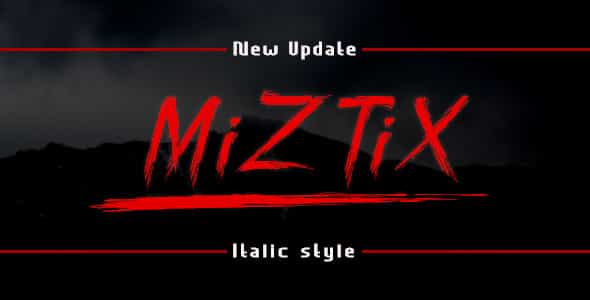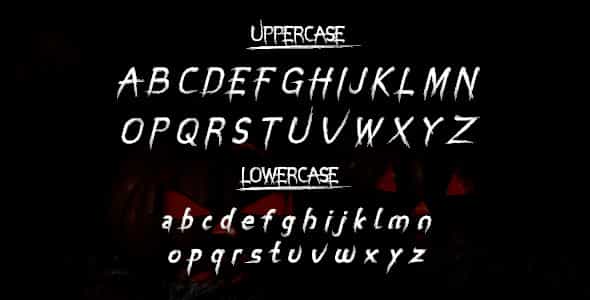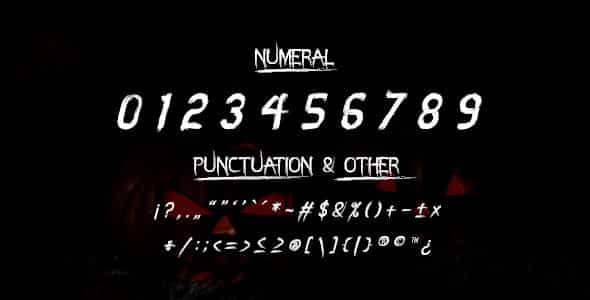
MiZTiX Brush is a font that was created on the basis of scratches / handwriting found on the walls of an unhabited building. Miztix typeface is the font that can be applied to posters, flayers, films, social media posts and other projects which need smooth stokes.